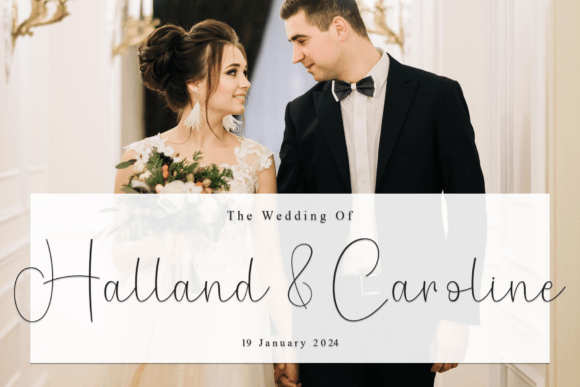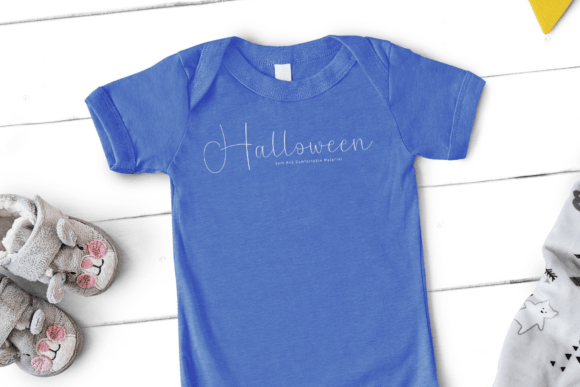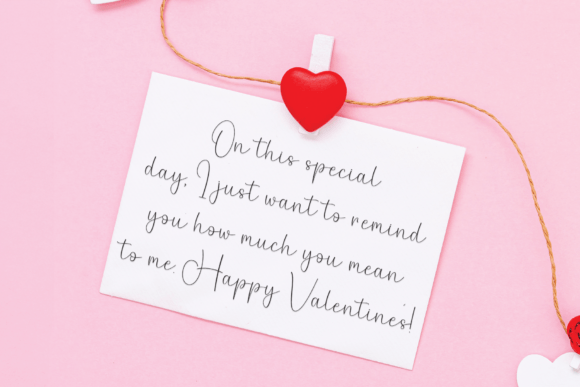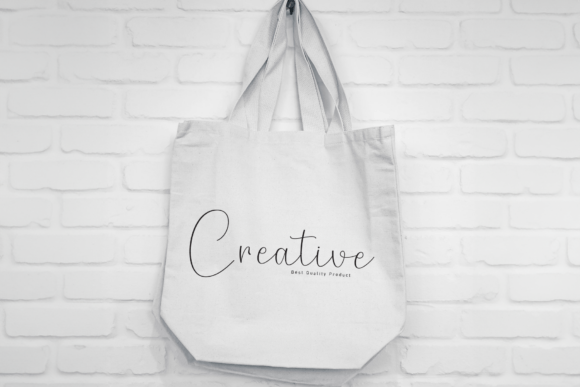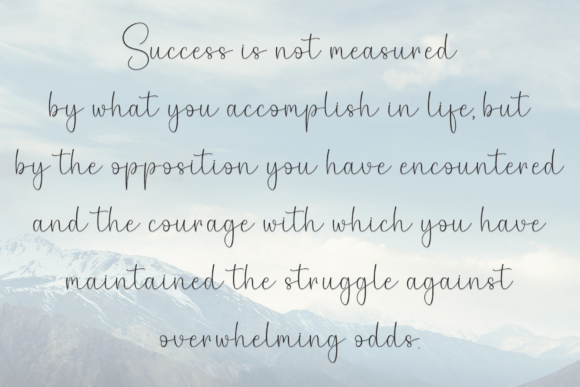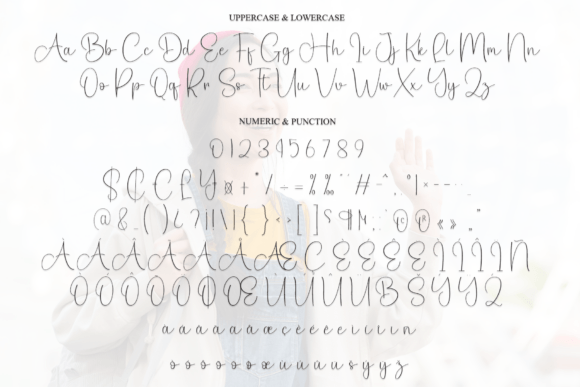
Where Words Become Whispers
As a designer, have you ever found yourself lost in the world of typography, searching for the perfect font to convey a message that’s both personal and elegant? It’s that moment of discovery, when the right font clicks, that makes all the difference in bringing a design to life. For me, that moment came when I stumbled upon the Hello Samantha Font – a delicate, handwritten beauty that whispers its message with every stroke.
The Hello Samantha Font is a masterclass in subtlety, featuring flowing letterforms that add a light and airy touch to any design. Whether you’re crafting a wedding invitation, a greeting card, or a personal blog post, this font is sure to leave a lasting impression. And for designers, its value lies in its versatility – it’s the perfect choice for projects where you want to convey a sense of warmth and approachability.
Hello Samantha Font Key Features
- Font Family: Hello Samantha is a script font designed to evoke a sense of elegance and sophistication.
- Unique Characteristics: Features a unique, handwritten style with subtle flourishes and connecting strokes, giving it a personal touch.
Hello Samantha Font Review
I recently had the chance to work with the Hello Samantha font, and overall, I’m impressed with its unique style and versatility. ✨ Here are a few things that really stood out to me:
- Its friendly and approachable feel makes it perfect for use in headings and titles.
- The font’s subtle imperfections give it a hand-written feel that’s both charming and authentic.
- It’s highly legible, even at smaller font sizes, which makes it a great choice for body text.
However, there are a few limitations that I’d like to mention: ⚠️
- The font may be a bit too ornate for use in situations where a more straightforward, sans-serif font is needed.
- It’s not as easily readable in certain languages or character sets, which may be a concern for global or multilingual projects.
Overall, I think Hello Samantha is a great choice for designers who want to add a touch of personality to their projects. It’s perfect for use in branding, advertising, or any other situation where a friendly, approachable feel is needed. With a little creative guidance, I think this font has a lot of potential for success.
For best results, use Hello Samantha font in headings and titles to create a clean and modern look.
Use Hello Samantha font in creative projects, such as logos, graphics, and illustrations, to add a touch of elegance and sophistication.
Use Hello Samantha font in presentations and documents to create a professional and modern look.
Hello Samantha font is ideal for:
- Graphic design and illustrations
- Presentations and documents
Remember to use Hello Samantha font consistently throughout your design to create a cohesive and professional look.